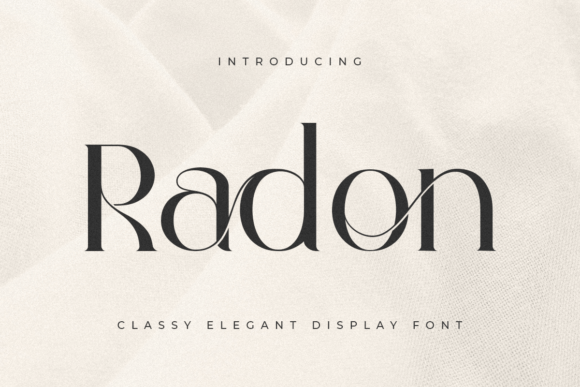
Introducing Radon Font: Elevate Your Design with Elegance and Boldness
Are you looking for a font that exudes elegance, sophistication, and versatility? Look no further than Radon Font, a stunning serif font that is sure to capture your heart. With its unique blend of classic and modern elements, Radon Font is perfect for creating a wide range of designs, from wedding invitations and stationery to social media posts and more.
What Makes Radon Font So Special?
Radon Font is an elegant and bold serif font that boasts an incredibly versatile style. Its classic serif design makes it perfect for traditional designs, while its bold and modern twist adds a touch of sophistication and elegance. Whether you’re looking to create a beautiful wedding invitation, a stunning piece of stationery, or an eye-catching social media post, Radon Font is the perfect choice.
- Versatile Style: Radon Font is designed to be versatile, making it perfect for a wide range of designs and applications.
- Elegant and Bold: With its classic serif design and bold modern twist, Radon Font exudes elegance and sophistication.
- Easy to Read: Radon Font is designed to be easy to read, making it perfect for body text and headlines.
Design Inspiration with Radon Font
Radon Font is perfect for designers looking to create stunning and elegant designs. Here are some design inspiration ideas to get you started:
- Wedding Invitations: Create beautiful and elegant wedding invitations that set the tone for the big day.
- Stationery: Design stunning stationery, including letterheads, business cards, and more.
- Social Media Posts: Create eye-catching social media posts that grab attention and drive engagement.
- Logos and Branding: Use Radon Font to create elegant and sophisticated logos and branding materials.
Typography Tips for Radon Font
To get the most out of Radon Font, here are some typography tips to keep in mind:
- Font Sizes: Use Radon Font in a range of font sizes to create visual hierarchy and emphasis.
- Line Spacing: Adjust line spacing to create a clear and readable design.
- Color: Experiment with different colors to create contrast and visual interest.
Font Pairing Ideas with Radon Font
Radon Font pairs perfectly with a range of fonts to create stunning and harmonious designs. Here are some font pairing ideas to get you started:
- Serif Fonts: Pair Radon Font with other serif fonts, such as Georgia or Times New Roman, for a classic and elegant look.
- Sans-Serif Fonts: Pair Radon Font with sans-serif fonts, such as Arial or Helvetica, for a modern and bold look.
- Script Fonts: Pair Radon Font with script fonts, such as Pacifico or Great Vibes, for a elegant and sophisticated look.
In conclusion, Radon Font is an elegant and bold serif font that is perfect for designers looking to create stunning and sophisticated designs. With its versatile style, easy readability, and range of design applications, Radon Font is a must-have font for any designer. Whether you’re looking to create wedding invitations, stationery, social media posts, or more, Radon Font is the perfect choice.